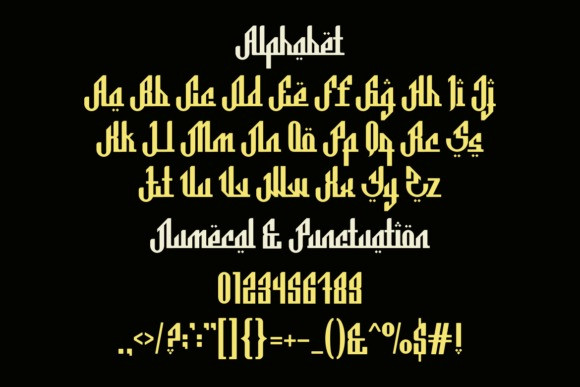
Al Hanin Font
Al Hanin Font is a cool, Arabic-style display font. Add it to all your design projects that require a touch of Oriental vibes and you will be impressed by the generated outcome!